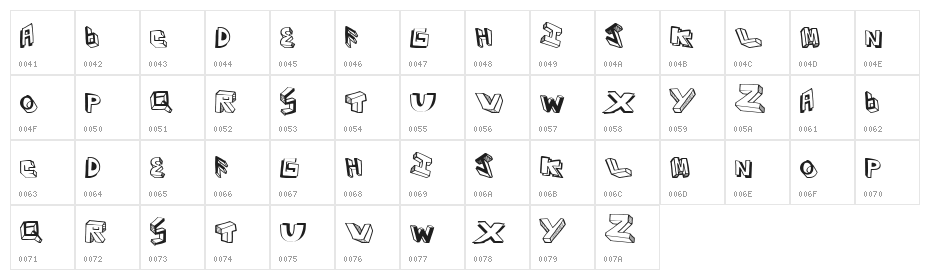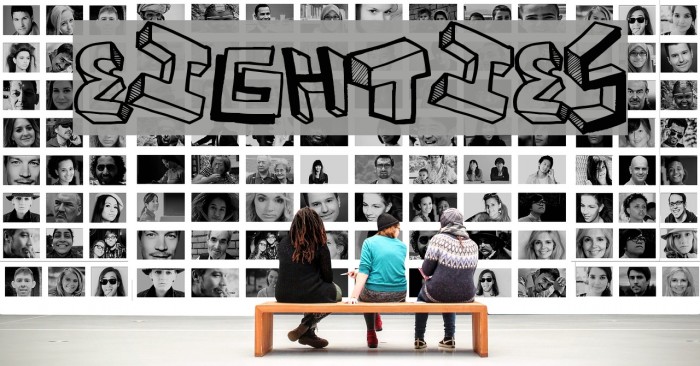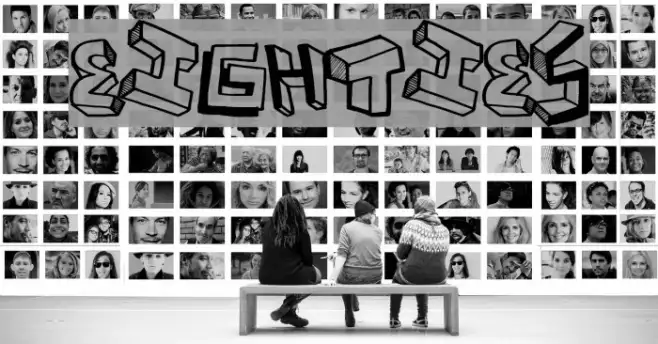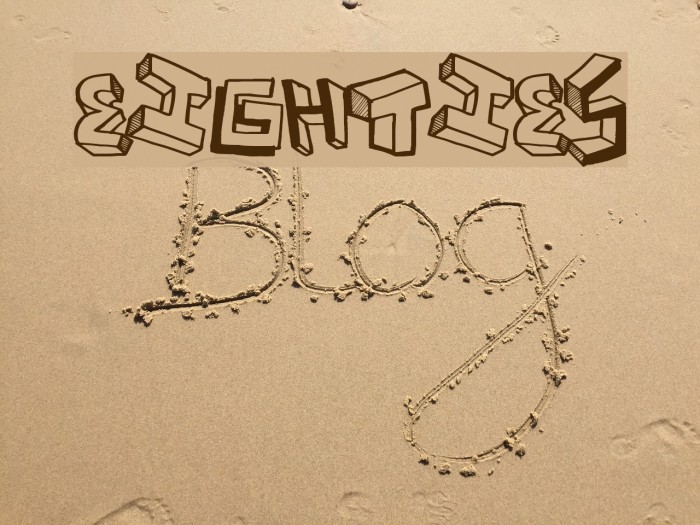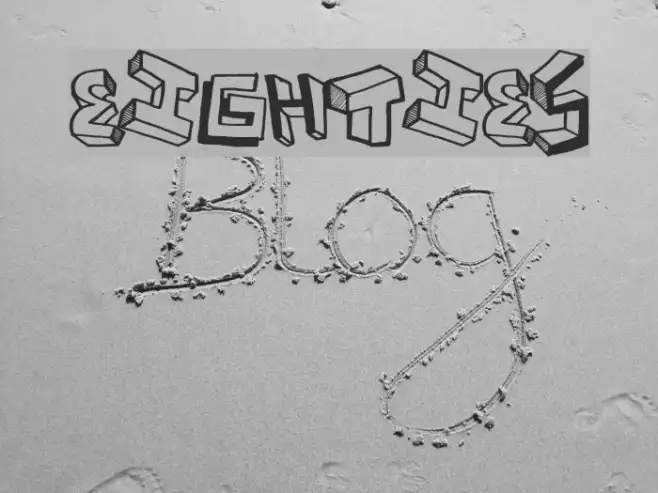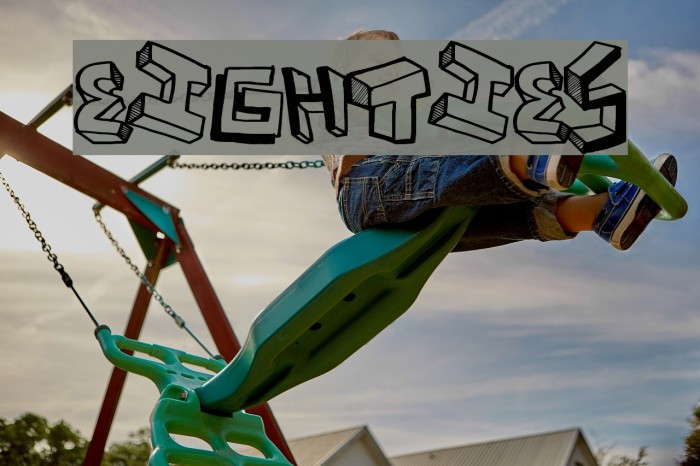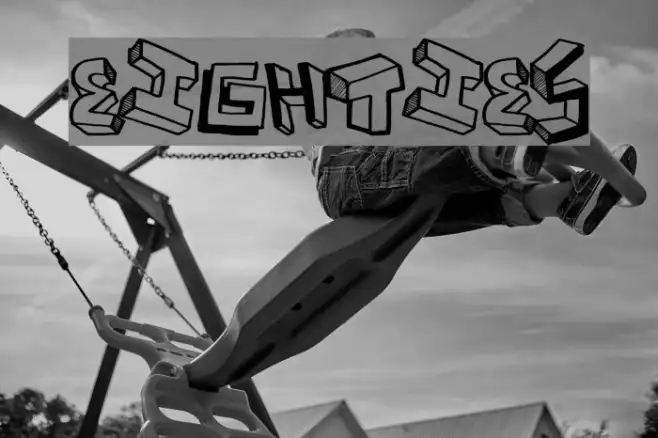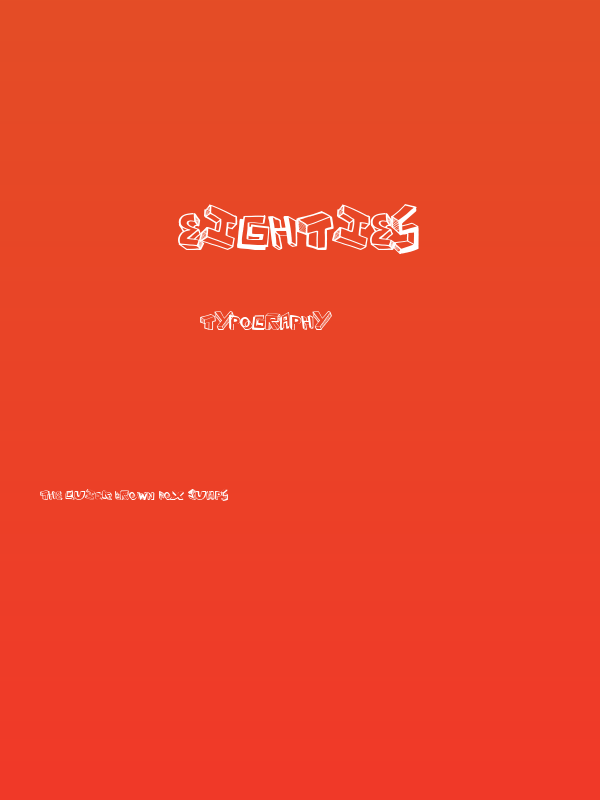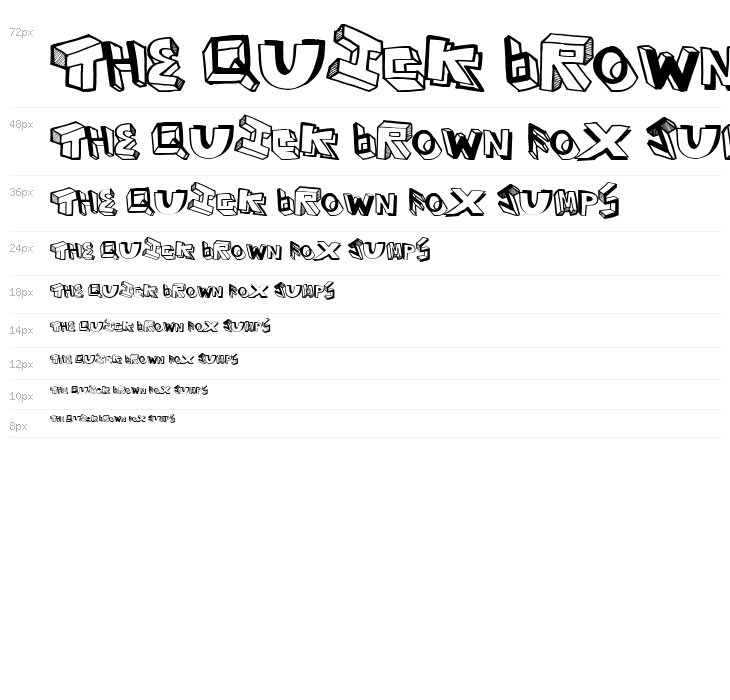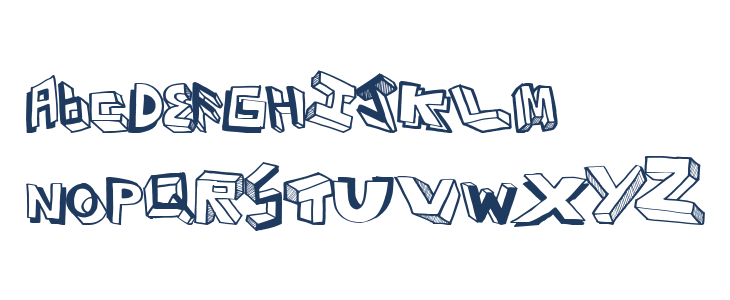
eighties Font
eighties Description
This font exudes a bold, retro vibe reminiscent of the 1980s, characterized by its three-dimensional, blocky appearance. Each letter is uniquely styled with a playful, dynamic energy, featuring sharp angles and a sense of depth that makes the characters pop off the page. The font's design incorporates a sketch-like quality, giving it a hand-drawn, artistic feel. The uppercase letters are particularly striking, with exaggerated forms and a sense of movement, while the lowercase letters maintain the same energetic style. This font is perfect for projects that aim to capture a nostalgic or playful aesthetic, making it ideal for creative and eye-catching designs.
Overall StyleVintage
Proposed ProjectsIdeal for retro-themed posters, album covers, video game graphics, and creative branding projects.